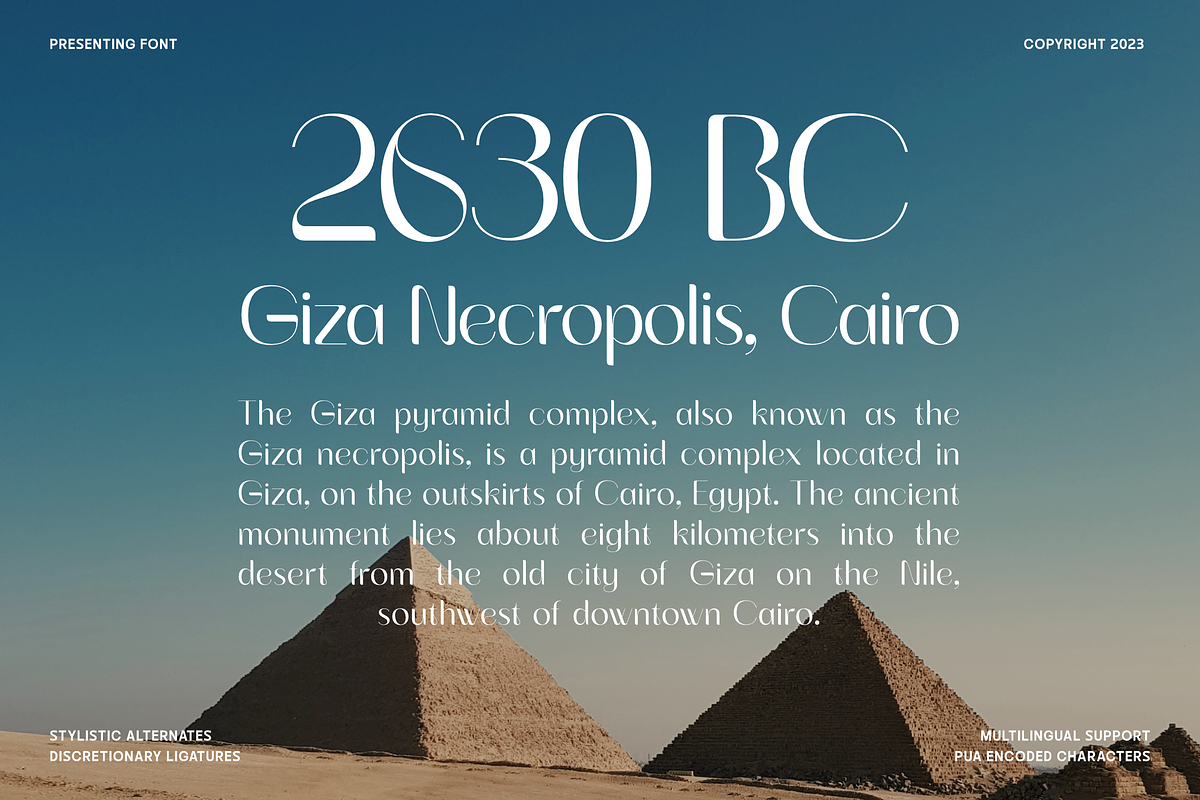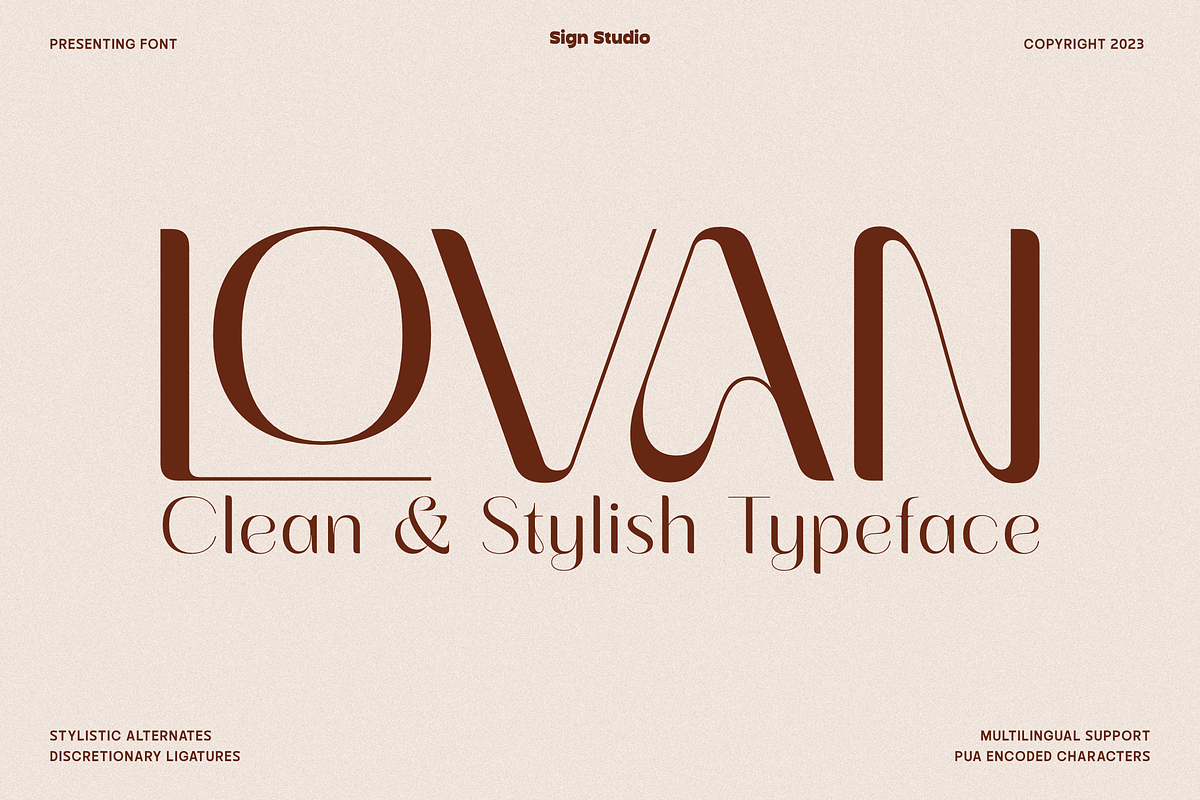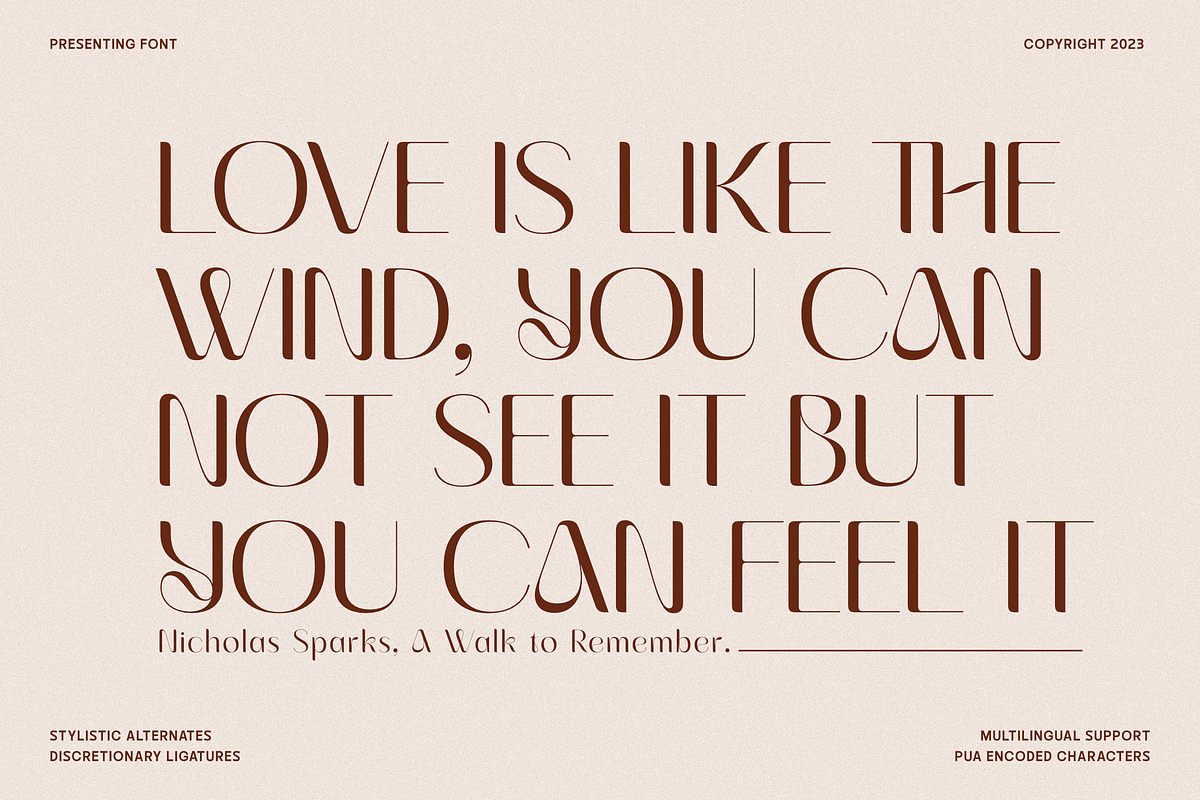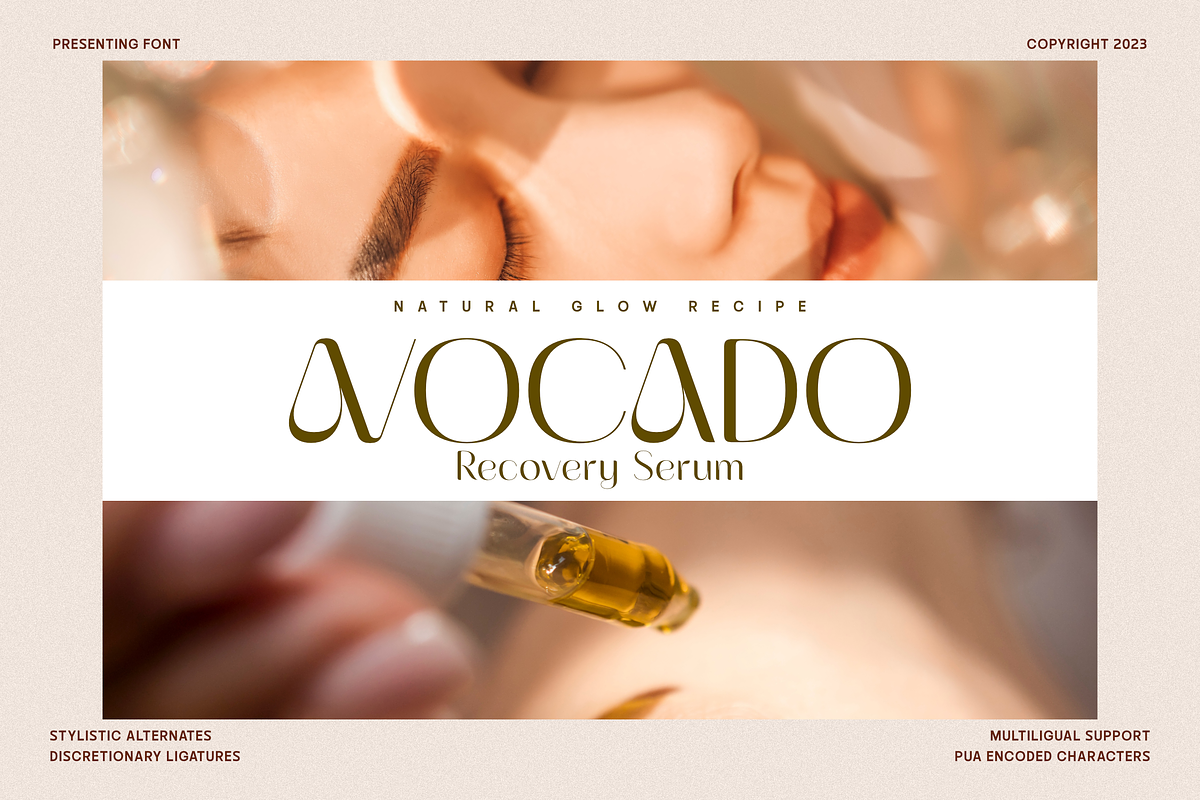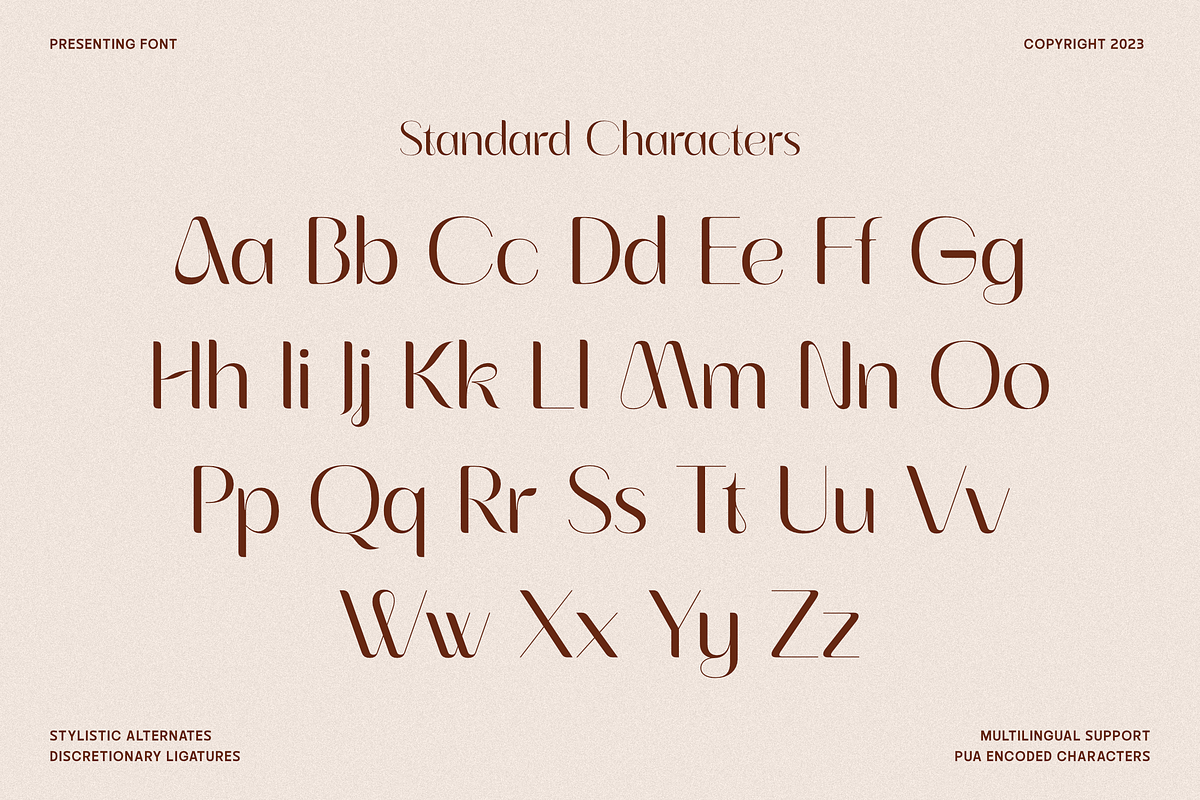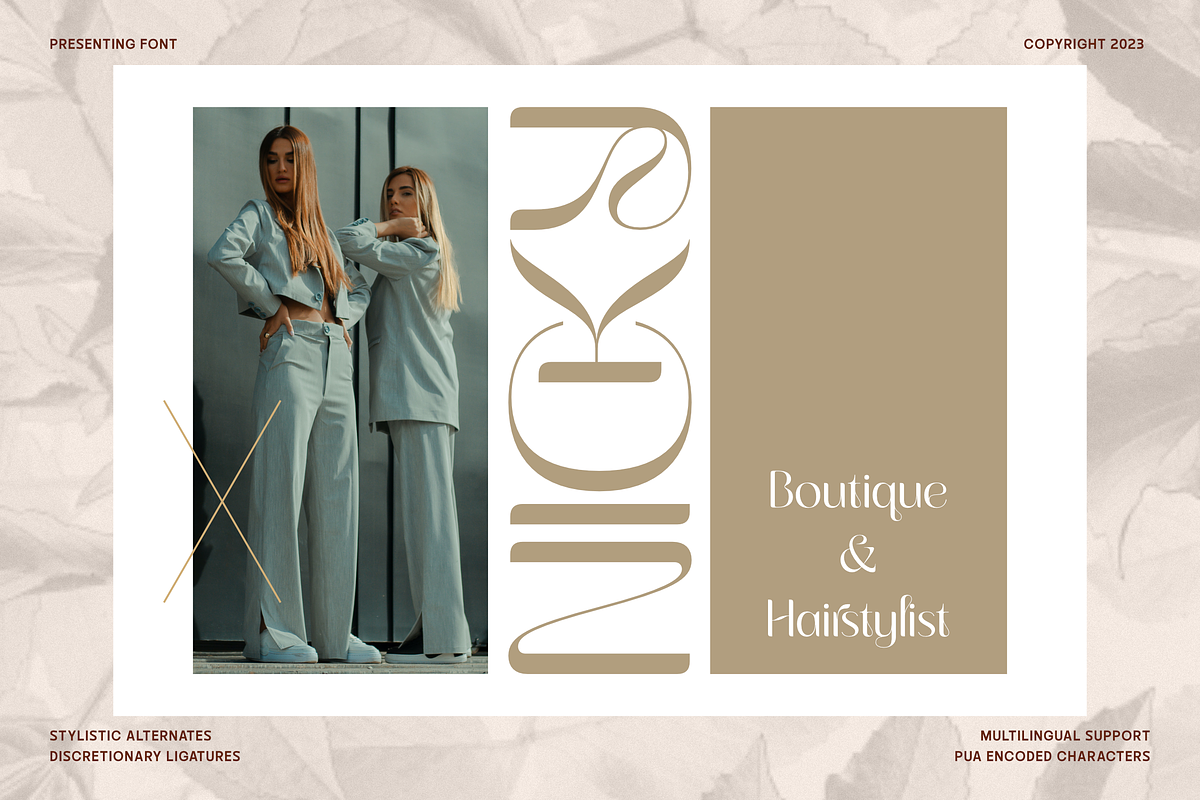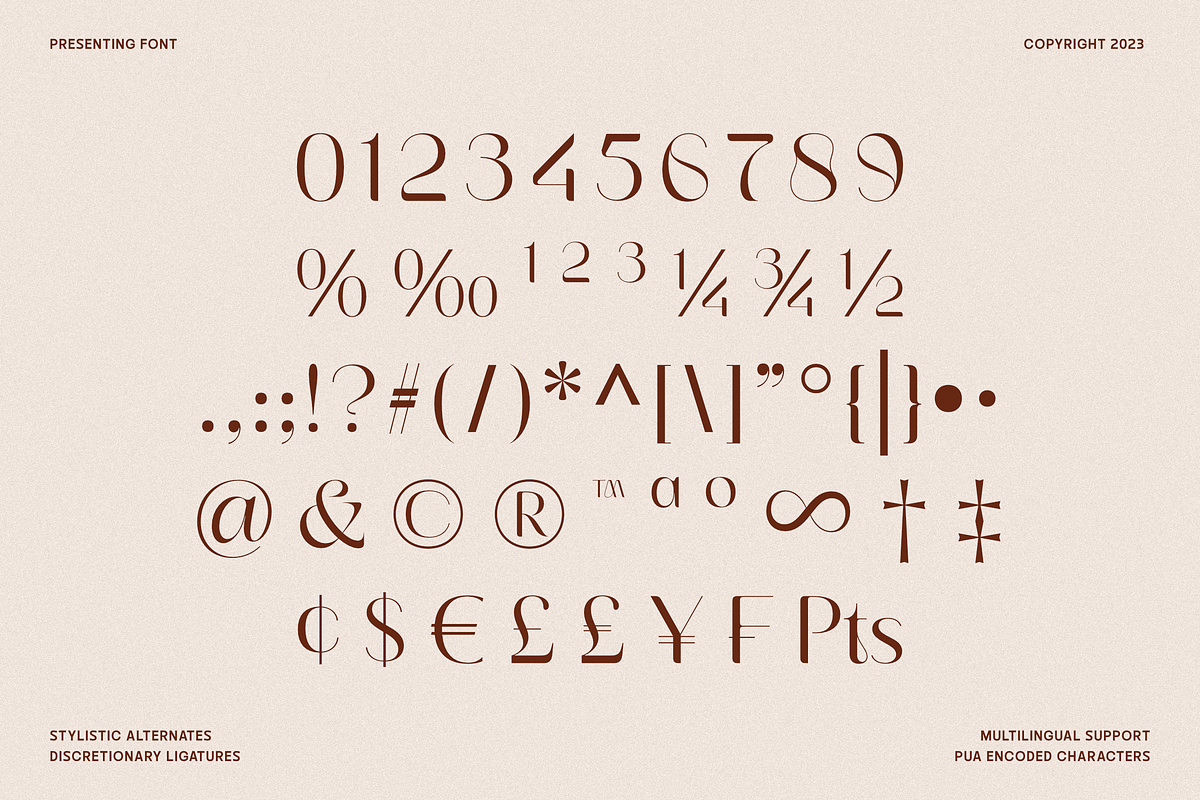
Lovan
Lovan - a Font with a love feel. A font created to act as a display font. The characters are created uniquely and have high contrast to make them original. The work of deep thought. Stylish and light will create a balance of casual and elegant typography, good harmony between characters. Lovan clearly has high aesthetic value to be combined with various designs, especially those with a Feminism theme. Even though this font is intended for decoration, it still maintains readability, which is of course the main point of Sign Studio's work.
Useful OpenType features: Standard Ligatures, Discretionary Ligatures, Alternative Carachters. The spacing between characters has also been arranged properly through the Kerning process, making for neat text writing.
Support for over 80 languages makes it an excellent communication tool for anyone looking for a versatile yet beautiful font.
Typeface with its beautiful design and good readability, especially equipped with various OpenType features, will elevate creative projects to a higher level when creating personal or commercial projects.